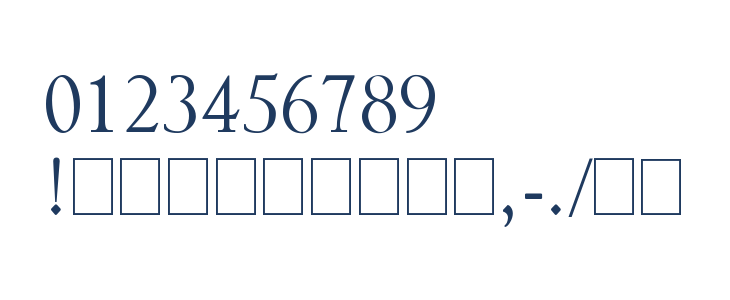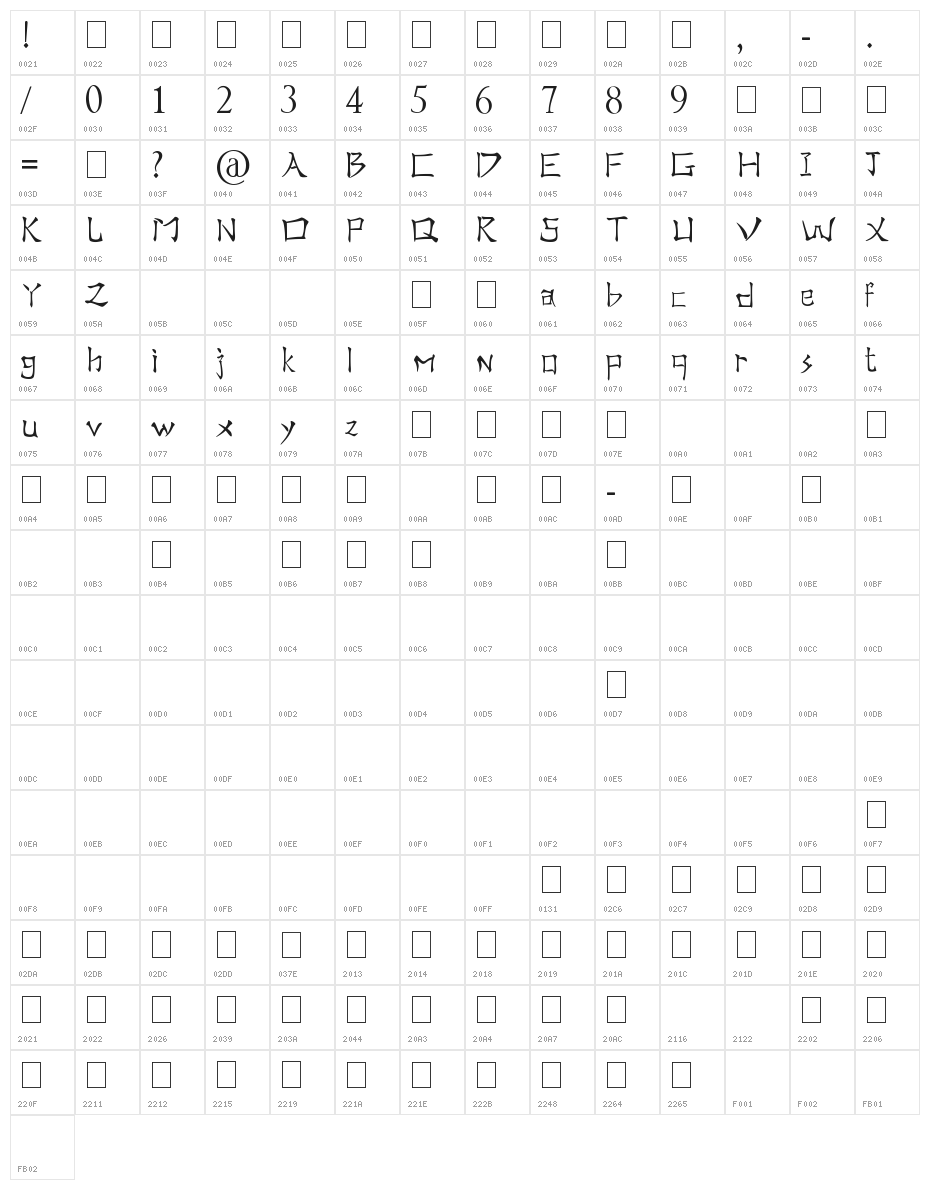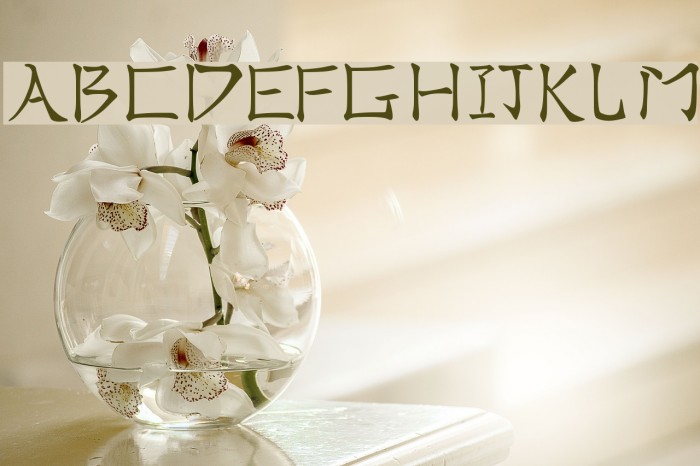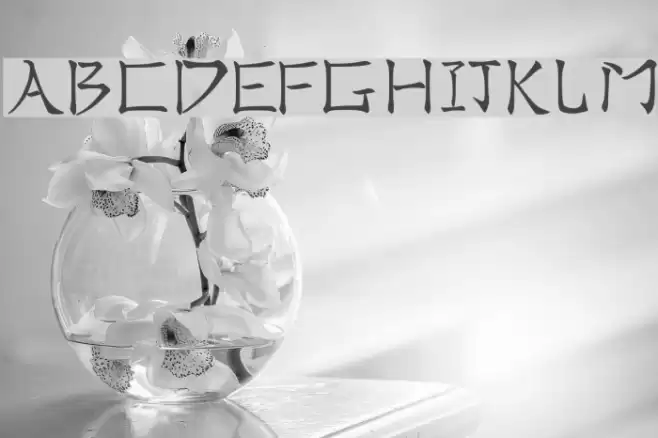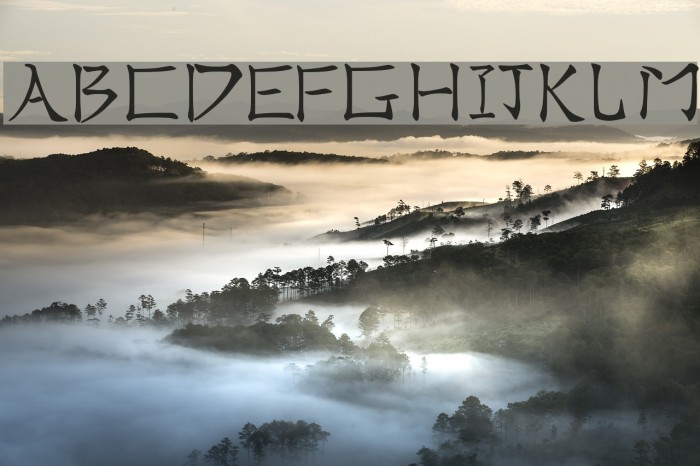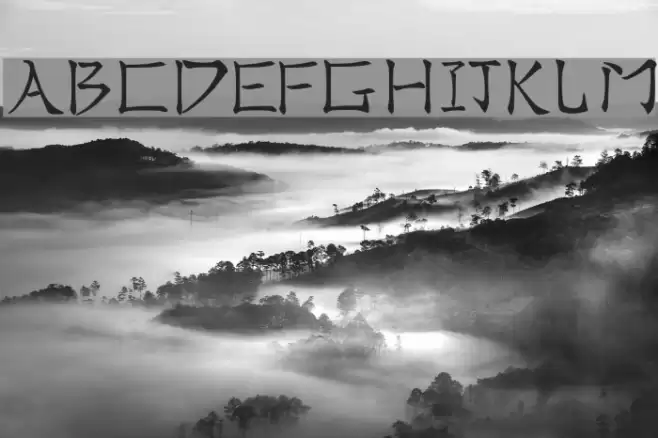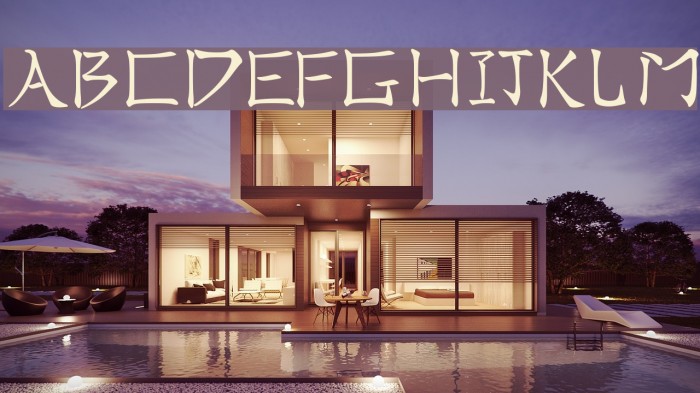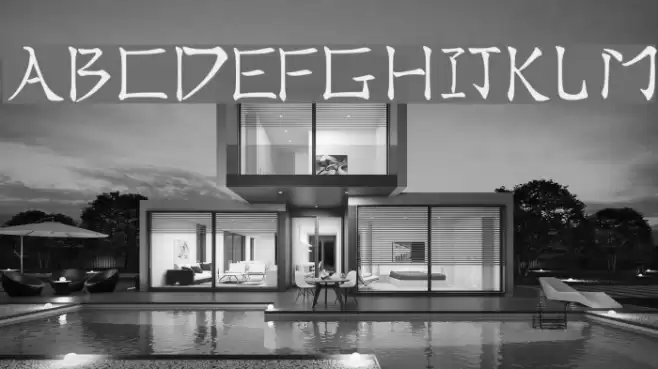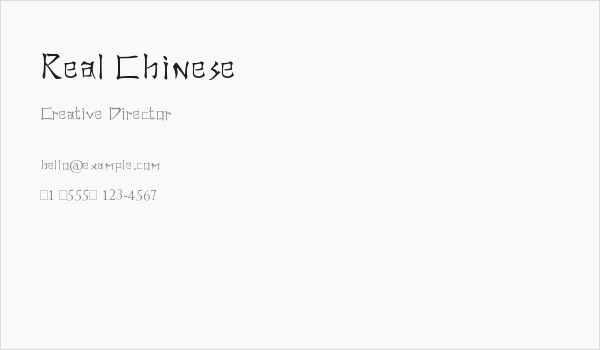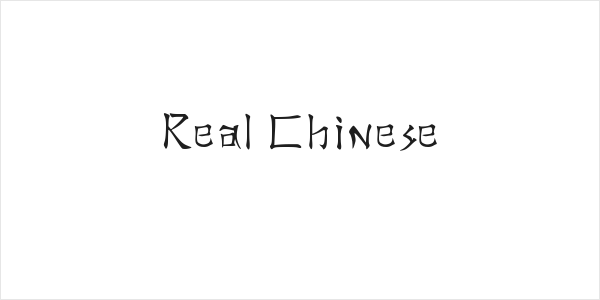
Real Chinese Font
Real Chinese Description
This font features a unique blend of traditional and modern elements, characterized by its brush-like strokes that mimic the fluidity of calligraphy. The uppercase letters have a distinct, angular appearance, while the lowercase letters maintain a more rounded and flowing form. The numerals are bold and clear, providing excellent readability. Special characters are designed with an artistic flair, adding to the overall aesthetic. The font's style is reminiscent of East Asian calligraphy, making it ideal for projects that require a cultural or artistic touch.
Archer Lai
| Overall Style | Artistic, Cultural |
| Proposed Projects | Ideal for cultural projects, artistic designs, branding, and invitations. |